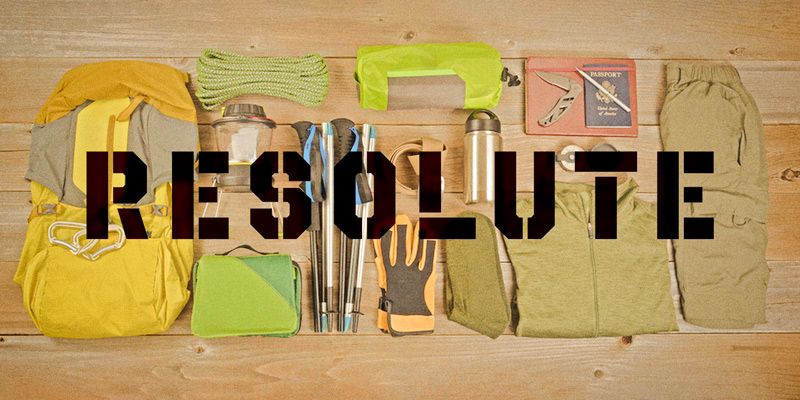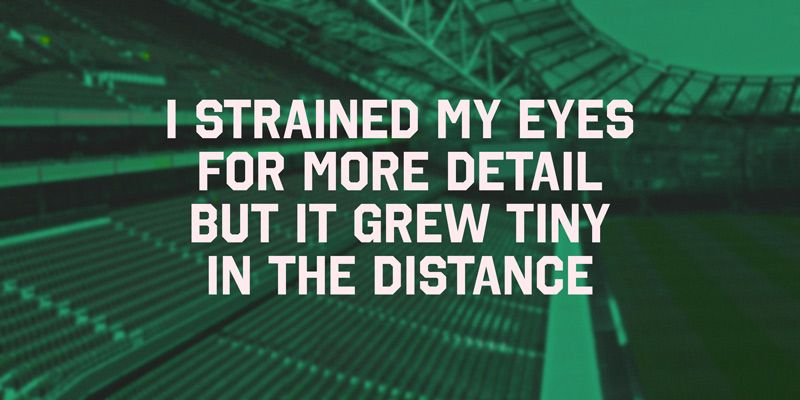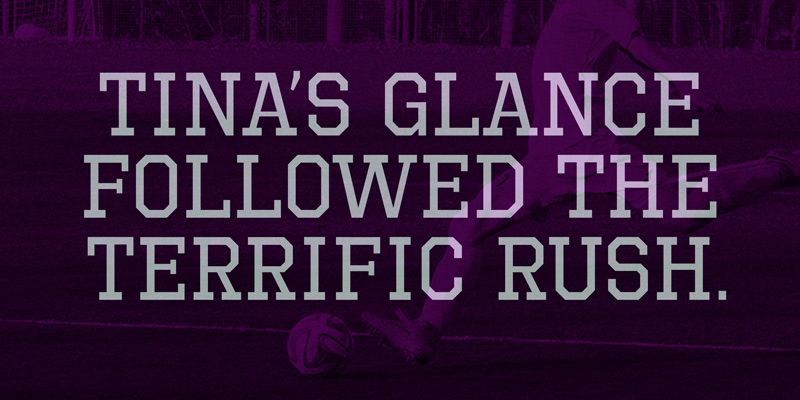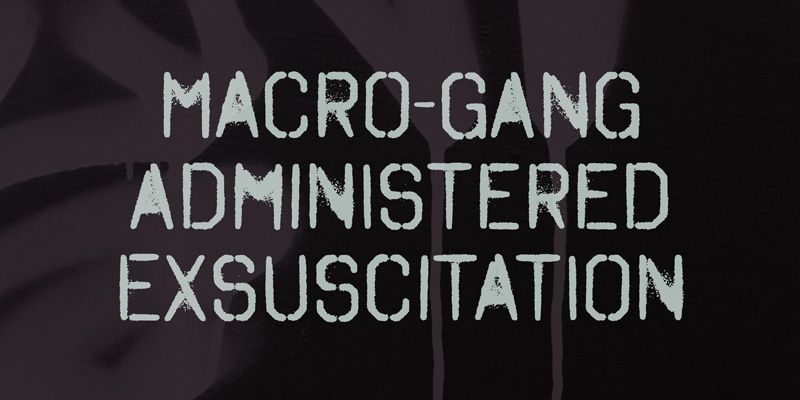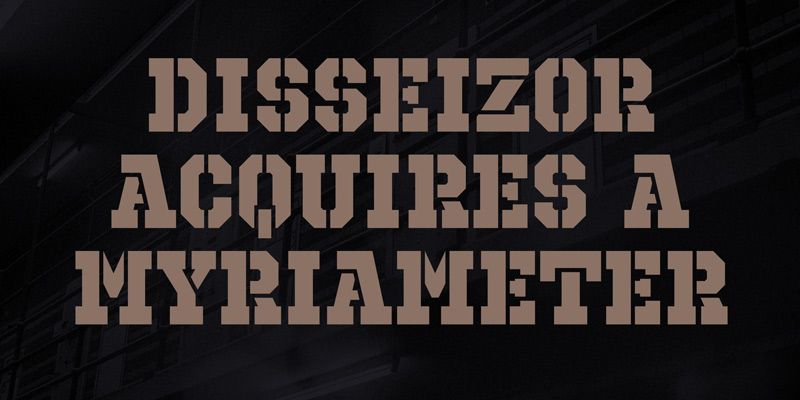
Octin builds a forceful display system from octagonal letterforms. The Adobe collection brings together several related voices: College for campus graphics, Sports for athletic names, Prison for a harder stencil-like tone, Stencil for equipment markings, and the textured Spraypaint A and Vintage A styles for painted or worn effects. College and Stencil offer several weights; the other members here are single styles. That mix lets a campaign move from a clean team name to a marked crate or a faded commemorative shirt while keeping the angular family resemblance. Choose the member for the surface and mood, then set short words large enough for its corners, breaks, or texture to show.